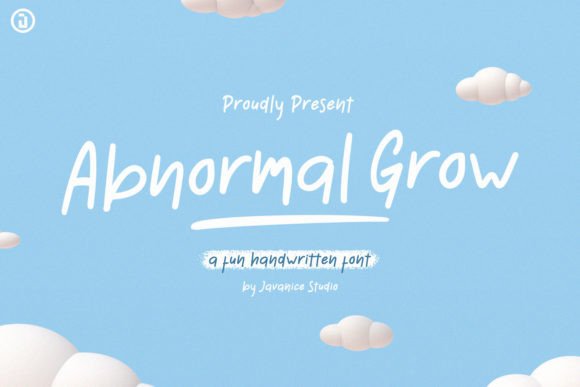
Introducing Abnormal Grow Font: The Perfect Handwritten Companion for Designers and Crafters
In the world of typography, a well-crafted font can elevate a design project from ordinary to extraordinary. For designers and crafters looking for a unique and playful touch, Abnormal Grow Font is an excellent choice. This fun handwritten font is perfect for a wide range of applications, from branding projects and apparel to labels, magazines, books, greeting/wedding cards, packaging, fashion, make-up, stationery, and any type of advertising purpose.
What Makes Abnormal Grow Font Stand Out?
Abnormal Grow Font boasts a distinctive, hand-crafted feel that sets it apart from more traditional fonts. Its abnormal growth style gives it a quirky and eye-catching quality, making it ideal for designers and crafters who want to add a personal touch to their work. The font’s versatility and legibility ensure that it can be used in various contexts, from digital platforms to print materials.
Key Features of Abnormal Grow Font
- Handwritten style: Abnormal Grow Font features a unique, handwritten style that adds a touch of personality to any design project.
- Fun and playful: The font’s abnormal growth style gives it a fun and playful feel, making it perfect for projects that require a lighthearted approach.
- Highly versatile: Abnormal Grow Font can be used in a wide range of applications, from branding and advertising to packaging and stationery.
- Easy to read: Despite its unique style, Abnormal Grow Font remains highly legible, making it suitable for both digital and print materials.
Abnormal Grow Font is an excellent choice for designers and crafters looking to add a personal touch to their work. Whether you’re creating branding materials, designing apparel, or crafting handmade cards, this font is sure to inspire your creativity. Its unique style and versatility make it an excellent addition to any design toolkit.
Use Cases for Abnormal Grow Font
- Branding projects: Use Abnormal Grow Font to create unique and memorable branding materials, such as logos, business cards, and letterheads.
- Apparel design: Add a playful touch to your apparel designs, such as t-shirts, hoodies, and tote bags.
- Labels and packaging: Use Abnormal Grow Font to create eye-catching labels and packaging materials that stand out on store shelves.
- Magazines and books: Add a touch of personality to your publications with Abnormal Grow Font, perfect for headings, titles, and quotes.
- Greeting and wedding cards: Create beautiful and unique greeting and wedding cards with Abnormal Grow Font.
- Stationery and make-up: Use Abnormal Grow Font to create stylish stationery, such as notebooks, journals, and make-up packaging.
Tips for Using Abnormal Grow Font
To get the most out of Abnormal Grow Font, here are a few tips:
- Experiment with colors: Abnormal Grow Font looks great in a variety of colors, so don’t be afraid to experiment and find the perfect hue for your design.
- Mix and match: Combine Abnormal Grow Font with other fonts to create a unique and visually appealing design.
- Pay attention to spacing: Make sure to adjust the spacing between letters and words to ensure optimal legibility.
Abnormal Grow Font is a fun and versatile handwritten font that’s perfect for designers and crafters looking to add a personal touch to their work. With its unique style, high legibility, and wide range of applications, this font is sure to become a staple in any design toolkit. So why not give Abnormal Grow Font a try and see how it can elevate your design projects?